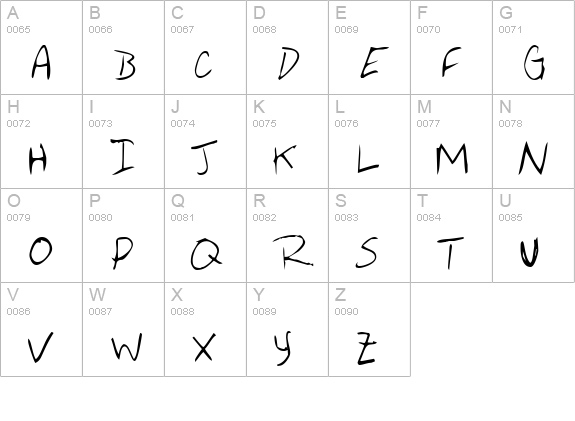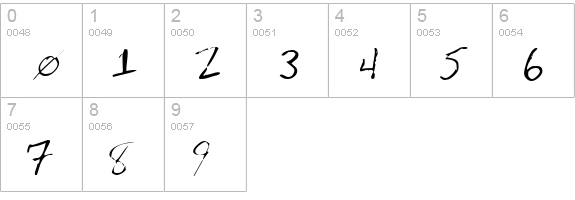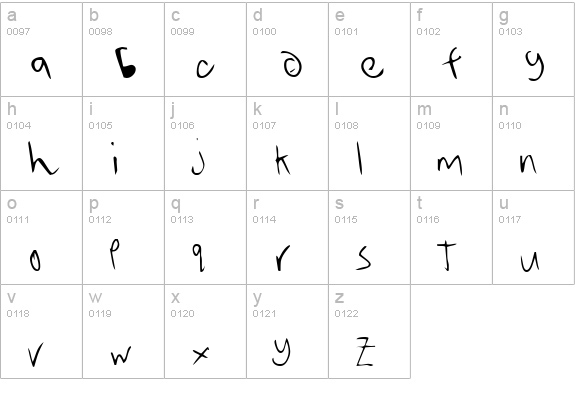
Averen Font Details
Averen font is a beautifully crafted typeface that strikes the perfect balance between elegance and modernity. Its sleek lines and sophisticated curves make it a versatile choice for a wide range of design projects. Whether you're creating a stylish logo, designing a sleek website, or crafting eye-catching marketing materials, Averen font is sure to make a lasting impression. What's even better is that Averen font is available for free download at FontsMarket.com. This means that you can easily access this stunning font and incorporate it into your projects without any cost. With its timeless appeal and professional quality, Averen font is a must-have addition to any designer's toolkit. Download it today and take your designs to the next level!